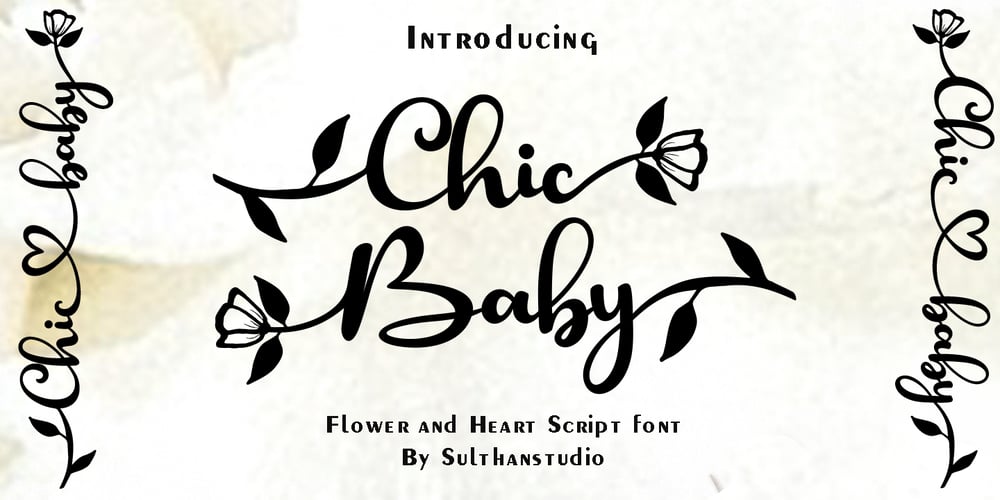
Chic baby Font Family was designed by Nasrullah and published by Sulthan Studio. Chic baby contains 1 styles and family package options. Chic baby is a unique handwritten script font with flower and heart swashes as connectors and also has several other swashes to give a charming impression to any of your work.